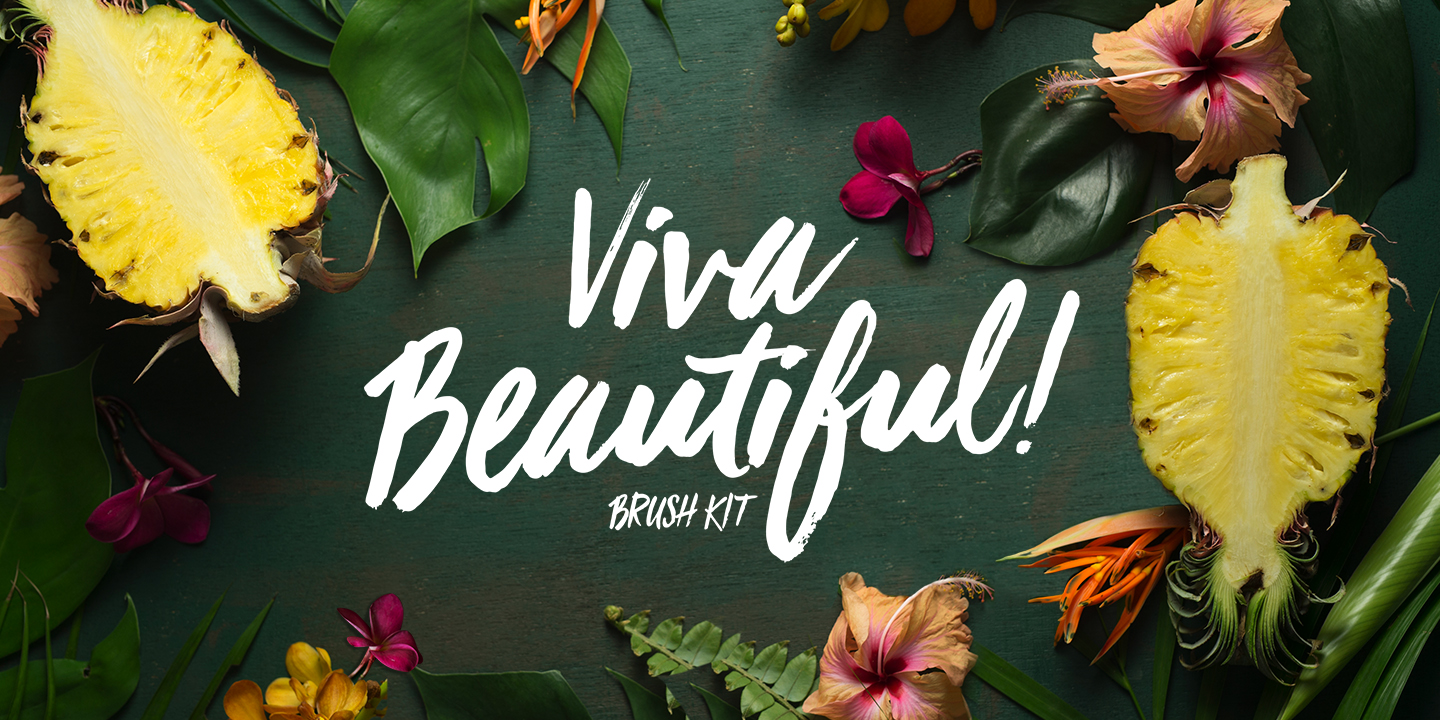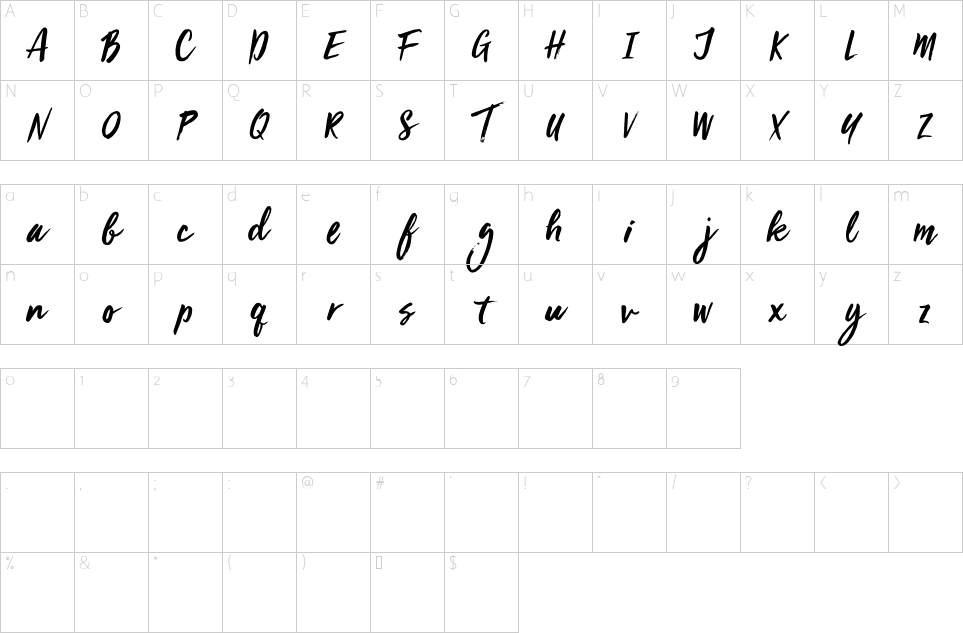
Viva Beautiful Font
Viva Beautiful Font - Viva beautiful includes two script styles (regular or b). This is a free demo for testing use only. Web viva beautiful collection pro h. For personal or commercial use you. Web viva beautiful font. Continue your branding with the ever. Viva beautiful is a lovely hand painted brush script. Viva beautiful is a classy and elegant handwritten brush font that was. Continue your branding with the ever popular viva beautiful font. Complete family of 12 fonts:
For personal or commercial use you. Viva beautiful is a classy and elegant handwritten brush font that was. Web viva beautiful font. This is a free demo for testing use only. Complete family of 12 fonts: Viva beautiful is a lovely hand painted brush script. Web viva beautiful collection pro h. Viva beautiful includes two script styles (regular or b). Continue your branding with the ever popular viva beautiful font. Continue your branding with the ever.
This is a free demo for testing use only. Viva beautiful is a lovely hand painted brush script. Viva beautiful is a classy and elegant handwritten brush font that was. Viva beautiful includes two script styles (regular or b). Complete family of 12 fonts: Web viva beautiful font. Continue your branding with the ever popular viva beautiful font. Continue your branding with the ever. For personal or commercial use you. Web viva beautiful collection pro h.
Continue your branding with the ever. For personal or commercial use you. Complete family of 12 fonts: This is a free demo for testing use only. Web viva beautiful font.
Viva Beautiful Font
Continue your branding with the ever. Web viva beautiful font. Continue your branding with the ever popular viva beautiful font. Web viva beautiful collection pro h. Complete family of 12 fonts:
Viva beautiful includes two script styles (regular or b). Web viva beautiful font. Continue your branding with the ever. Viva beautiful is a classy and elegant handwritten brush font that was. Continue your branding with the ever popular viva beautiful font.
Web viva beautiful collection pro h. Web viva beautiful font. Viva beautiful is a classy and elegant handwritten brush font that was. Continue your branding with the ever popular viva beautiful font. Viva beautiful includes two script styles (regular or b).
This is a free demo for testing use only. Web viva beautiful font. Viva beautiful is a classy and elegant handwritten brush font that was. Continue your branding with the ever. Viva beautiful is a lovely hand painted brush script.
Complete family of 12 fonts: This is a free demo for testing use only. Continue your branding with the ever. Continue your branding with the ever popular viva beautiful font. Viva beautiful includes two script styles (regular or b).
Continue your branding with the ever popular viva beautiful font. Viva beautiful includes two script styles (regular or b). Viva beautiful is a classy and elegant handwritten brush font that was. Web viva beautiful collection pro h. Viva beautiful is a lovely hand painted brush script.
Viva Beautiful Font
This is a free demo for testing use only. Web viva beautiful font. Viva beautiful is a classy and elegant handwritten brush font that was. Viva beautiful is a lovely hand painted brush script. Continue your branding with the ever.
Viva Beautiful Regular Font by Cultivated Mind Font Bros
Continue your branding with the ever. Continue your branding with the ever popular viva beautiful font. For personal or commercial use you. Web viva beautiful collection pro h. Viva beautiful is a classy and elegant handwritten brush font that was.
Viva Beautiful Includes Two Script Styles (Regular Or B).
Continue Your Branding With The Ever Popular Viva Beautiful Font.
This is a free demo for testing use only. Web viva beautiful font. Viva beautiful is a classy and elegant handwritten brush font that was. Viva beautiful is a lovely hand painted brush script.